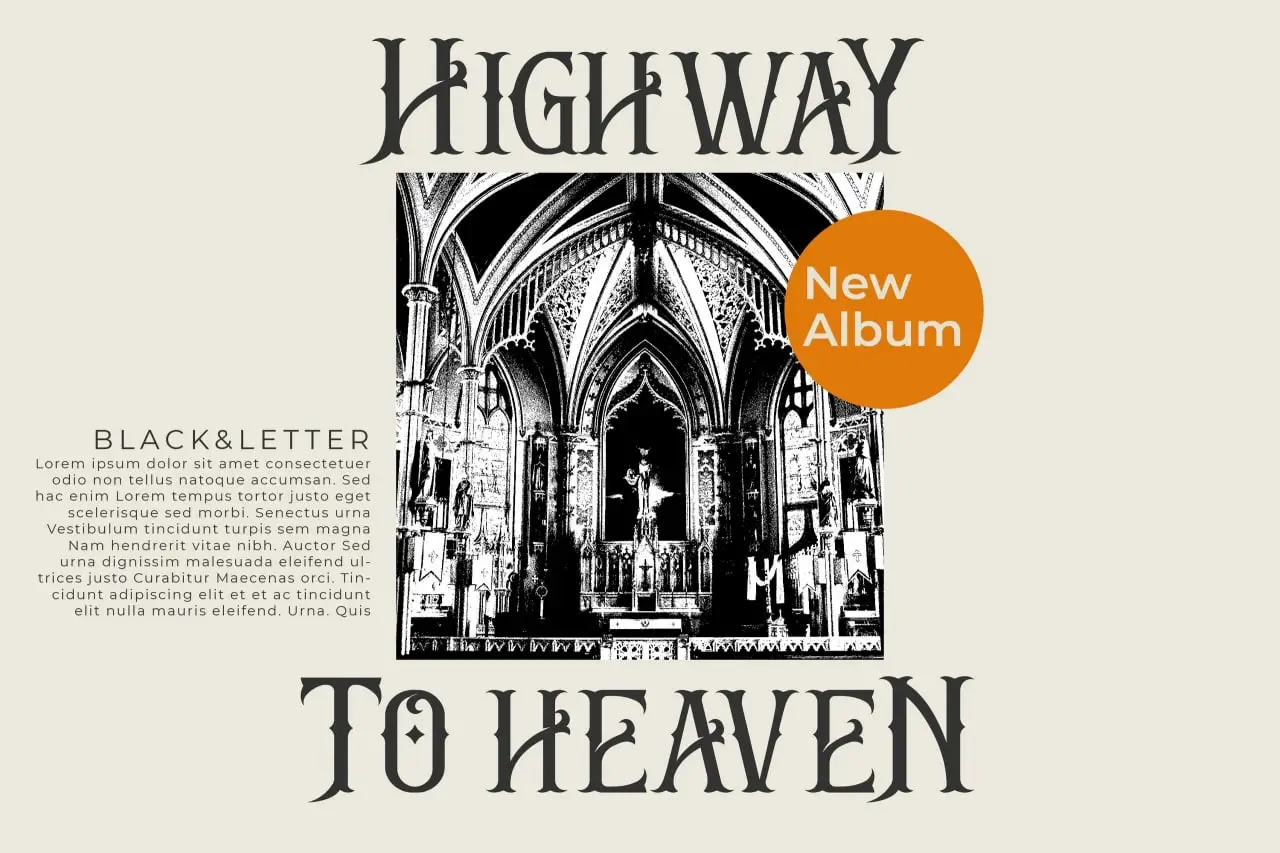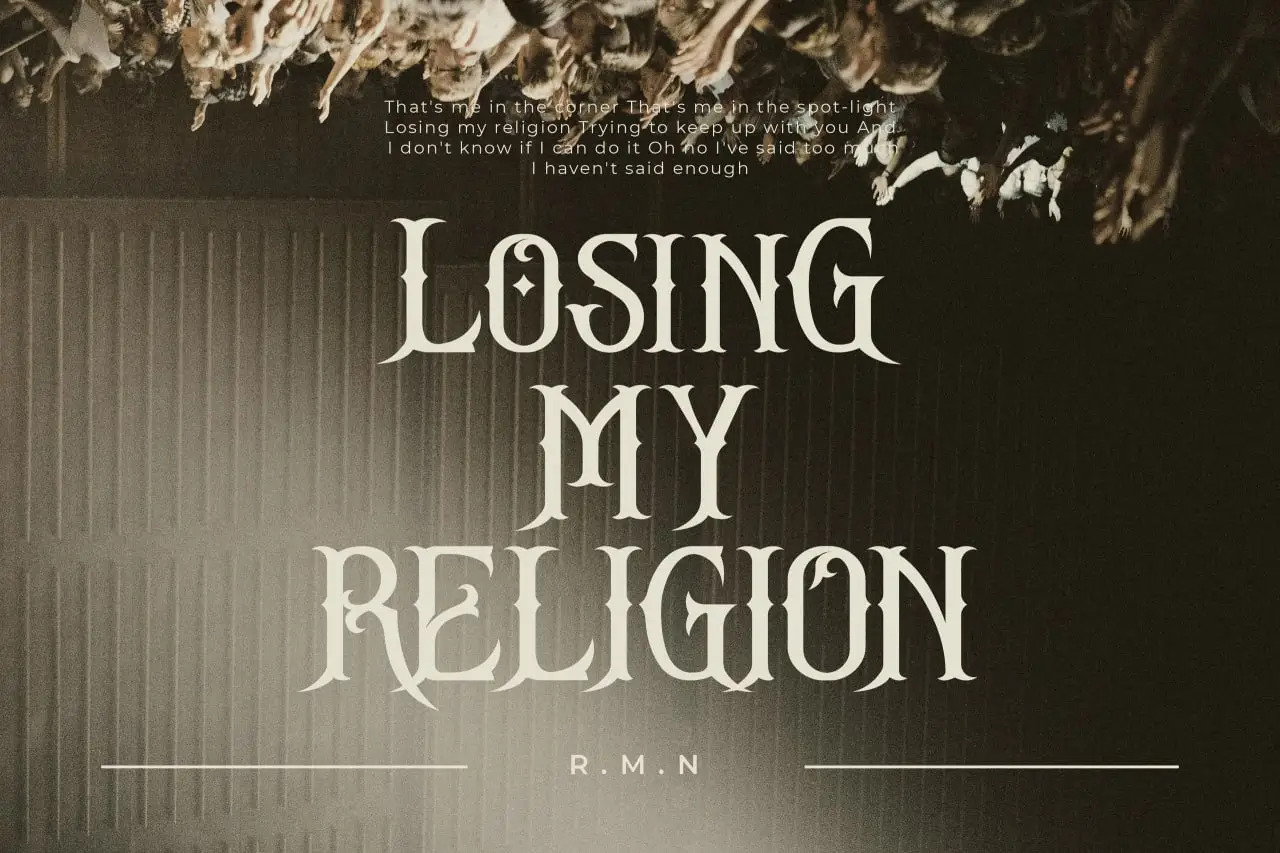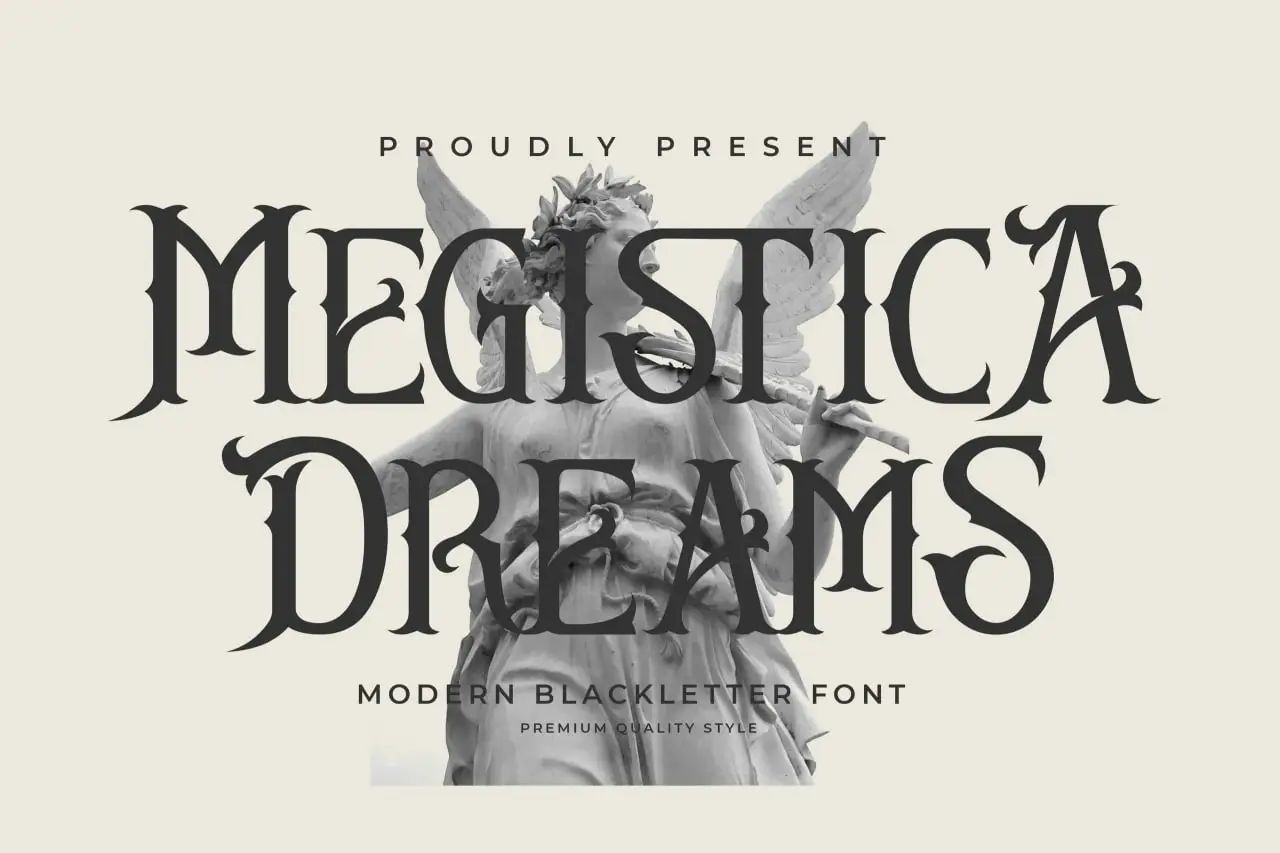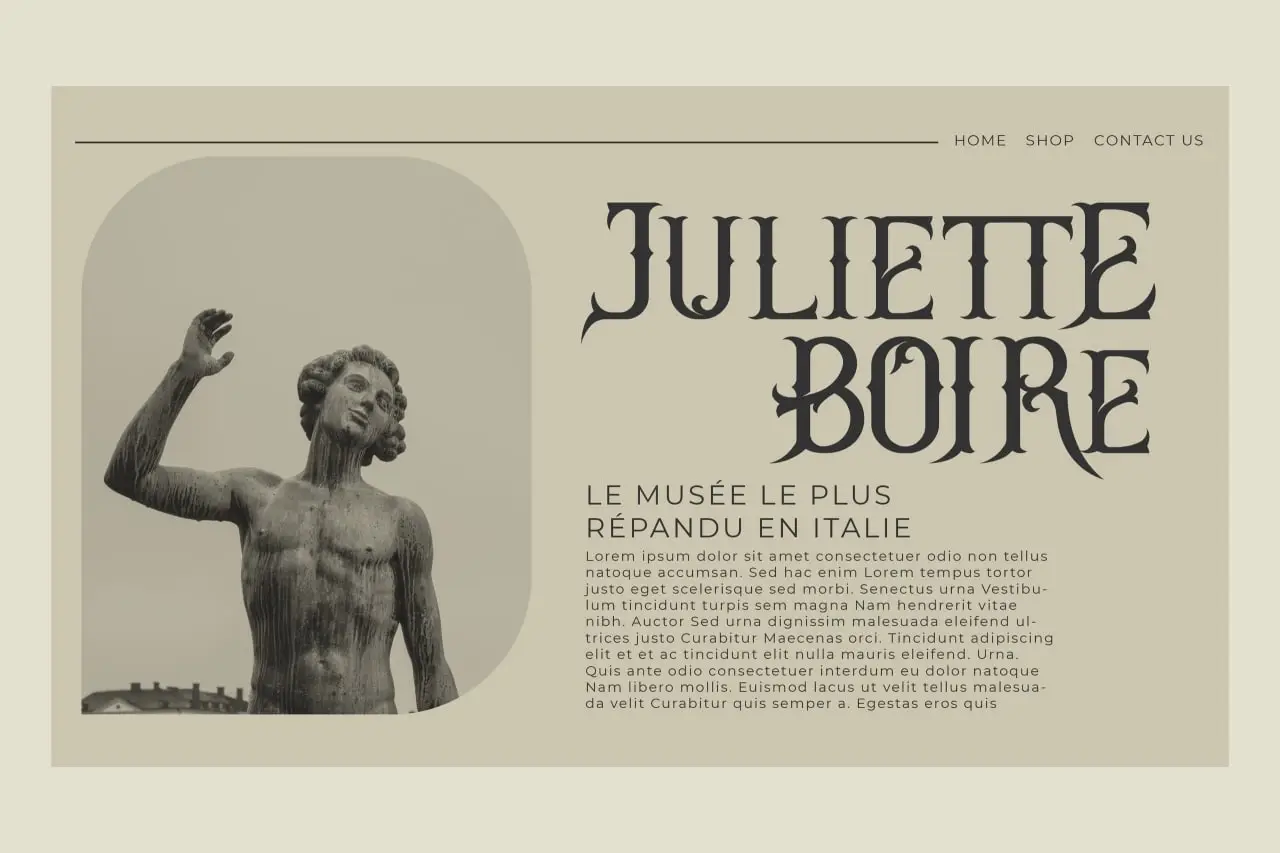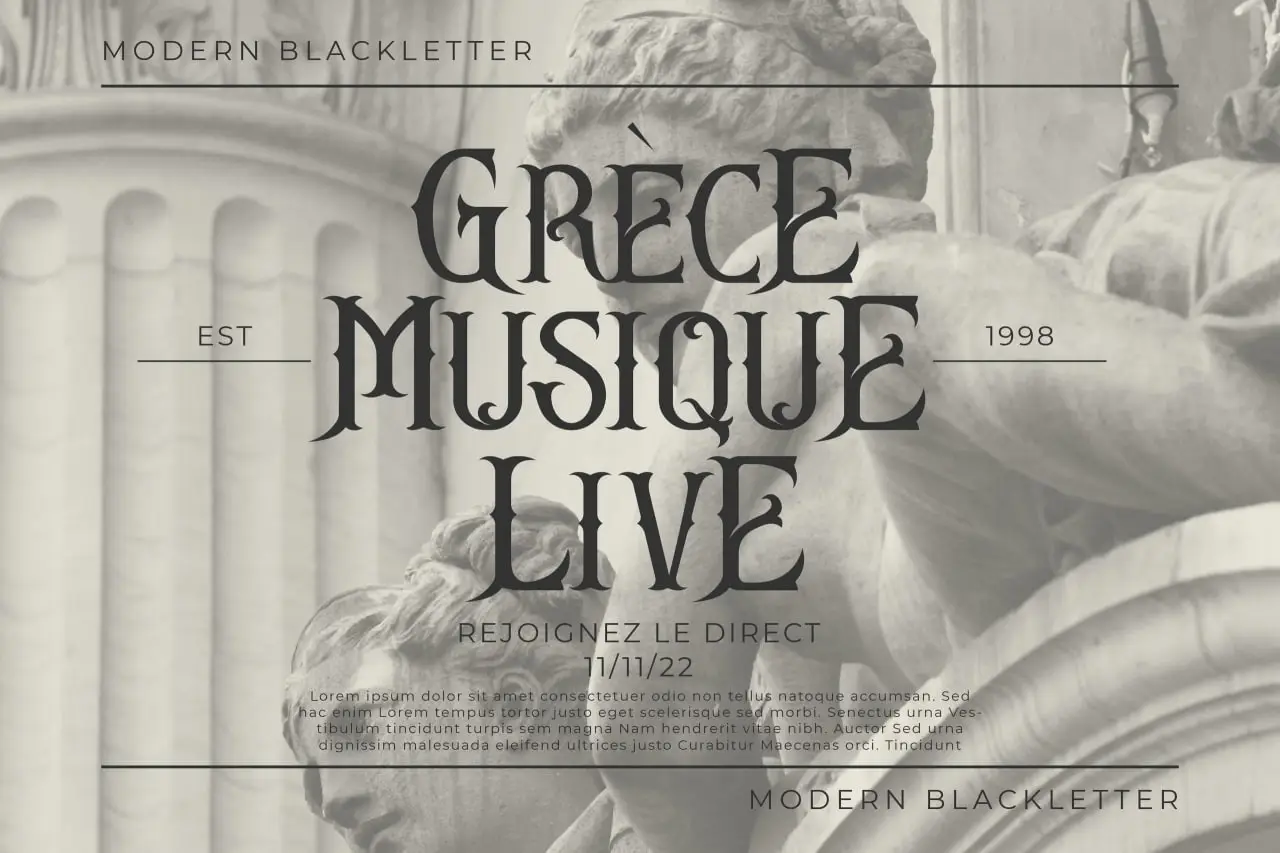
Megistica Dreams-Modern Blackletter Font
Introducing Megistica Dreams, a modern blackletter font that combines traditional elegance with contemporary flair. This font is perfect for creating striking designs that stand out, making it an ideal choice for branding, logos, and various print materials.
• Stylish blackletter design with a modern twist
• Multiple weights for versatile usage
• Uppercase and lowercase letters included
• Easy to read at various sizes
• Ideal for branding and logo design to convey a sense of tradition and elegance
• Perfect for invitations, posters, and promotional materials